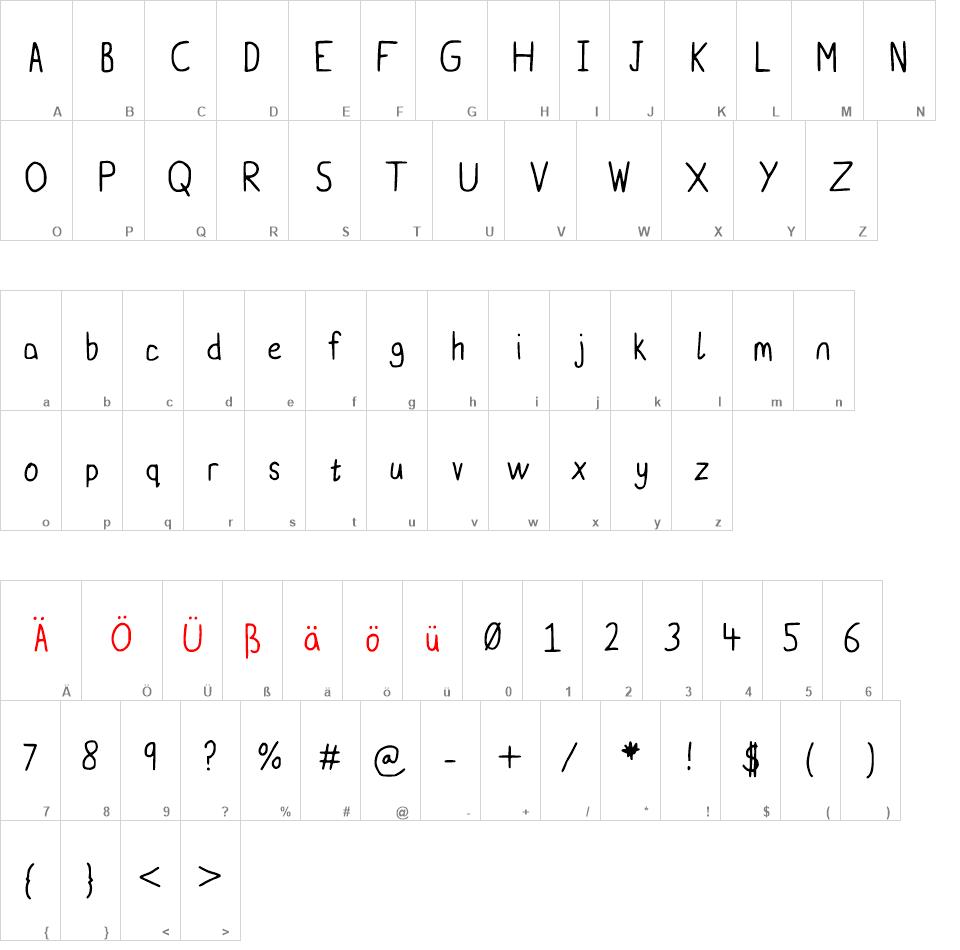
Billbones Sans
Billbones Sans font
Billbones Sans
bill bones sans is possibly the second worst font ever created. released under GPL because, frankly, it is rubbish.
suggested uses:
*replacement for comic sans ms in your passive-aggressive shared kitchen signs.